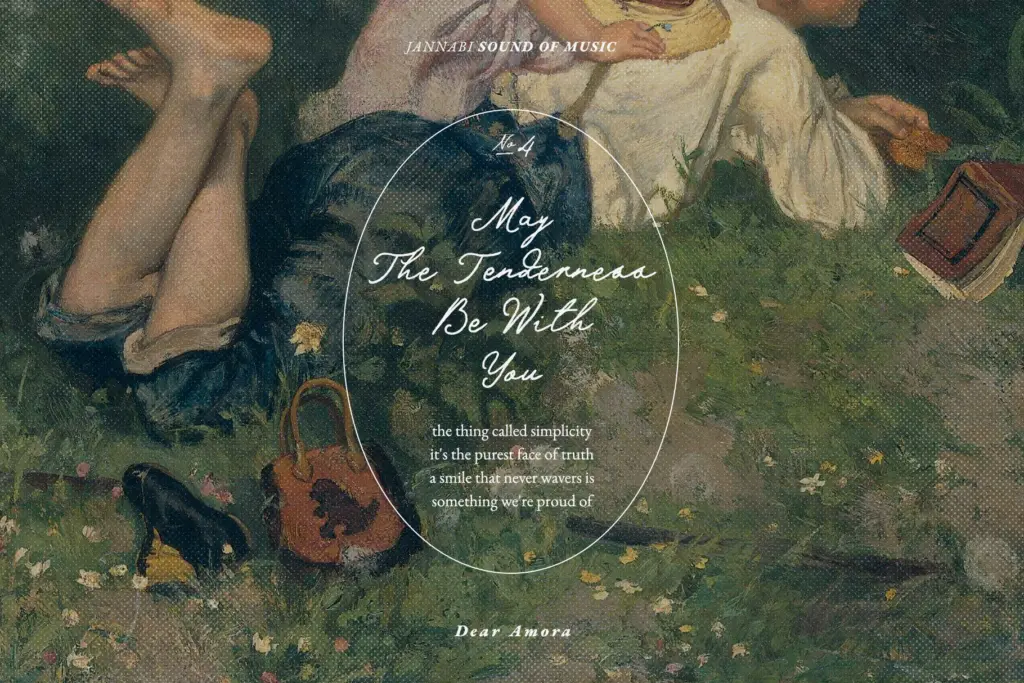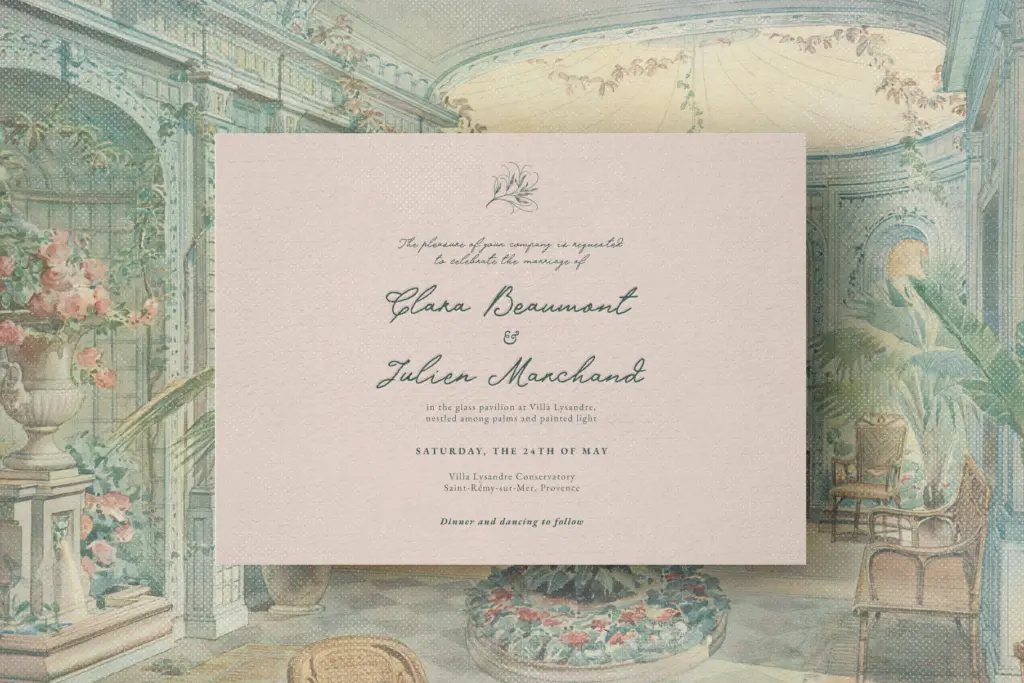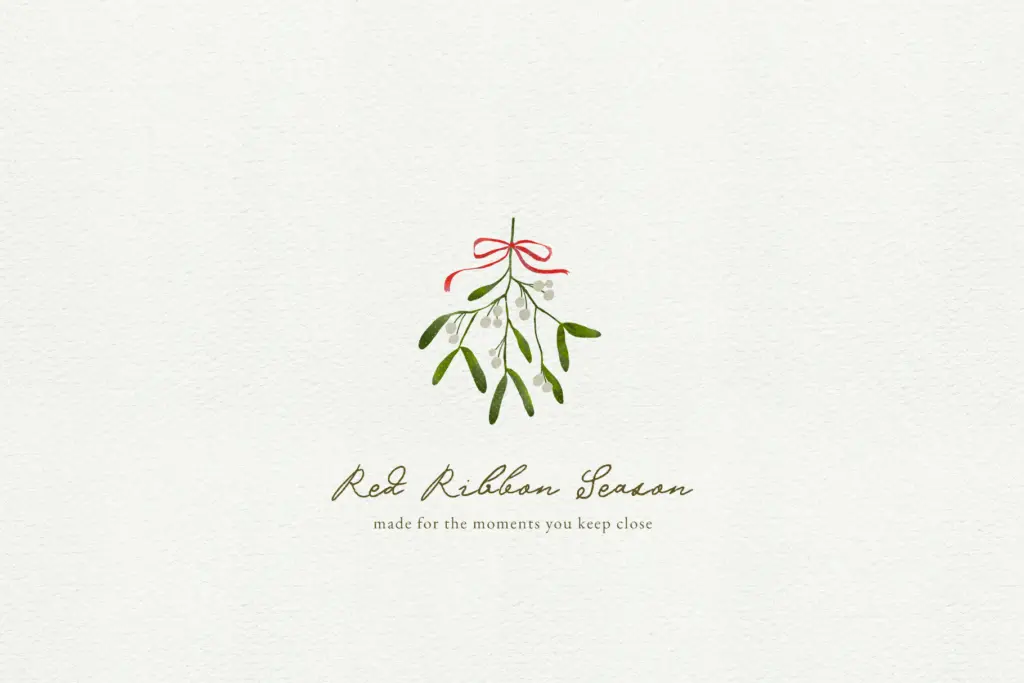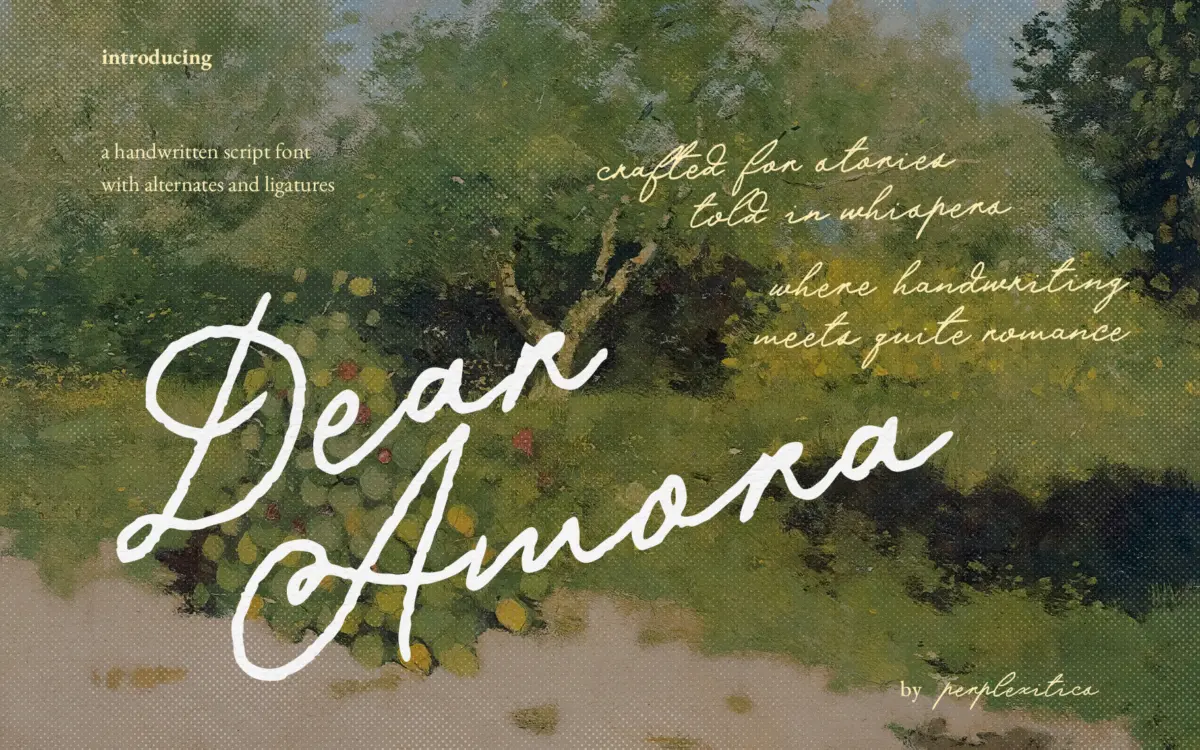
Dear Amora sits in the crowded field of romantic handwritten scripts, and it doesn’t try to reinvent that field so much as execute it cleanly. The strokes are light, with a consistent thin-to-medium weight that reads as pencil or fine brush rather than pointed-pen calligraphy. Letters lean gently to the right and connect through low, easy joins rather than dramatic swashes, which keeps the overall texture calm instead of busy.
Where it distinguishes itself a little is in the restraint of its flourishes. Many fonts in this category pile on loops at every ascender and descender; Dear Amora holds back, letting a handful of letters carry the decorative weight while the rest of the alphabet stays plain and legible. That imbalance is deliberate and it works, though it also means the font’s personality lives mostly in a few key letters rather than throughout the whole set.
The package covers uppercase and lowercase, numerals, punctuation, alternate letterforms, and ligatures, along with extended Latin character support for accented languages. The alternates are the more useful part of the kit: swap in a few of the fancier lowercase forms and a word can shift from plain to ornamental without changing the typeface. Ligatures handle common letter pairs so joins don’t look forced, which matters more in a connecting script than in almost any other category, since a bad join is immediately visible.
The multilingual coverage is broad enough for most European-language projects, though as with most single-style handwritten fonts, heavier diacritics can crowd the x-height at small sizes. There’s a single regular weight rather than a family, so anyone hoping to build a full hierarchy out of Dear Amora alone will need to pair it with something else for body text or bold headlines.
This is a font built for short bursts of text rather than paragraphs: a couple’s names on an invitation, a signature line, a monogram, a few words of journaling on a page. At those lengths the connecting strokes and alternates do real work, giving the impression of a handwritten note rather than a set typeface. Push it into a full sentence of body copy and the joins start to compete with each other, slowing reading down — which is fine for a card front, less fine for anything meant to be read at length.
It suits wedding stationery, greeting cards, packaging accents, and logo lockups for brands going for a soft, personal tone — skincare, florists, small-batch goods, that kind of territory. It’s less suited to anything requiring a masculine or neutral voice, or to interfaces and signage where clarity at a glance matters more than mood. Used at generous sizes, with enough letter-spacing to let the loops breathe, it does what it sets out to do without overreaching.
- Alternates and ligatures give real variation without cluttering the base alphabet
- Restrained flourishes keep the script legible at small display sizes
- Broad Latin diacritic support suits multilingual wedding and stationery projects
- Single regular weight means no built-in hierarchy for pairing headline to body
- Joins become harder to read once text runs longer than a short phrase
Dear Amora is a competent, well-mannered romantic script that knows its lane and stays in it. It's strongest on invitations, monograms and short branding lines, and weakest the moment you ask it to carry a paragraph. Buy it for its restraint, not for versatility.